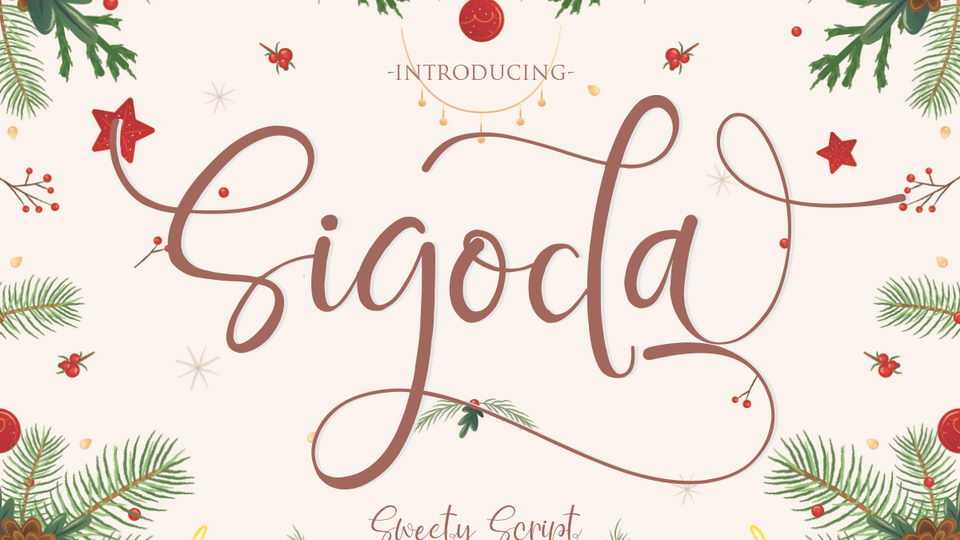
Download Sigoda font, a sweety modern script with a handmade calligraphy style, decorative characters and a dancing baseline. Sigoda font looks beautiful on greeting cards, wedding invitations, business cards and more.
Designer: Gilar Studio